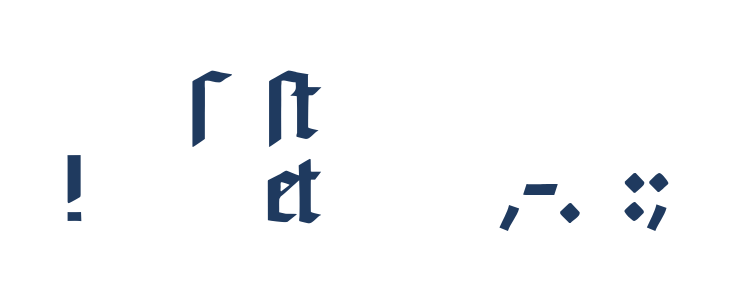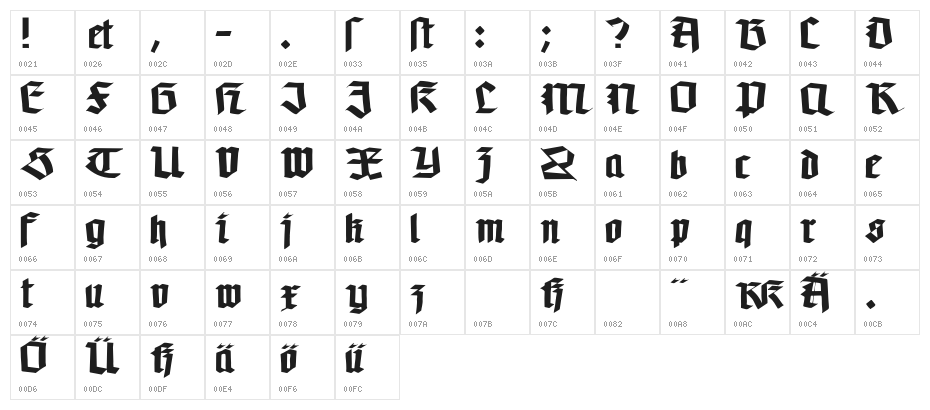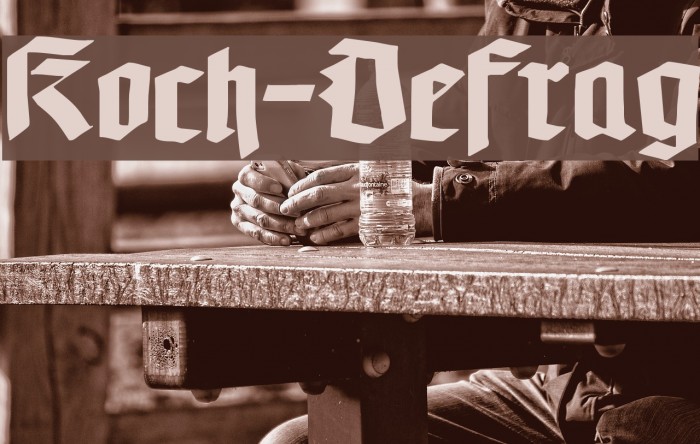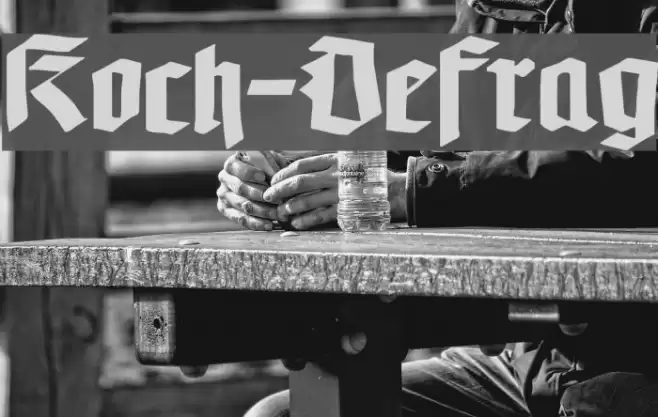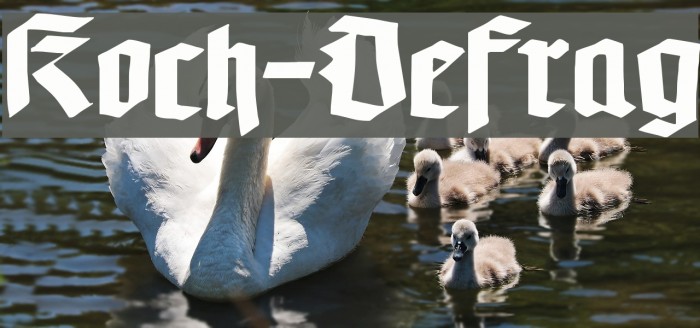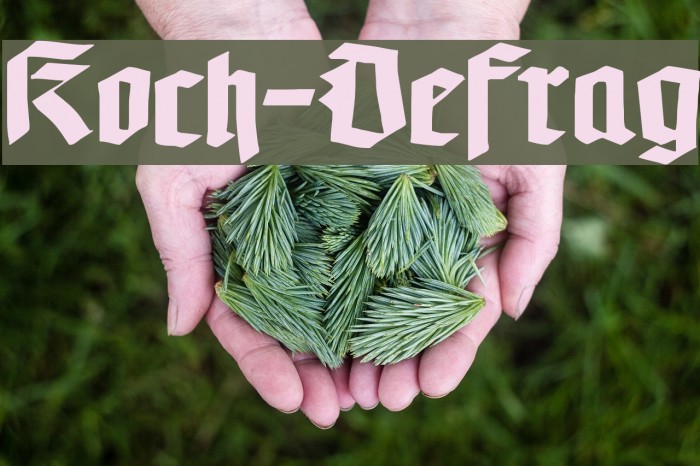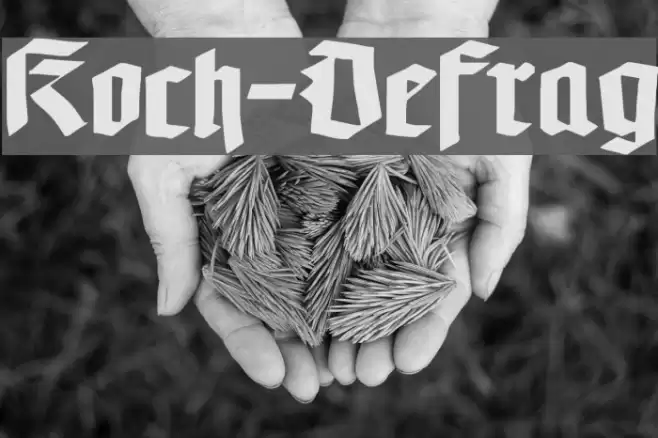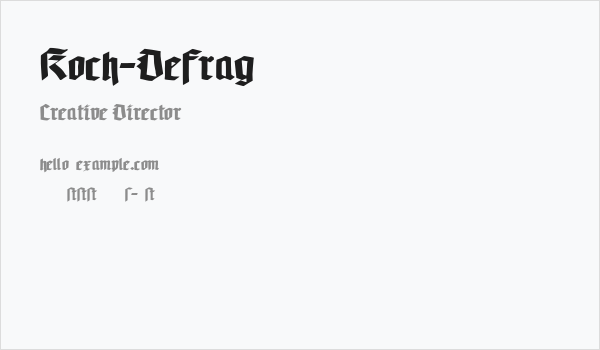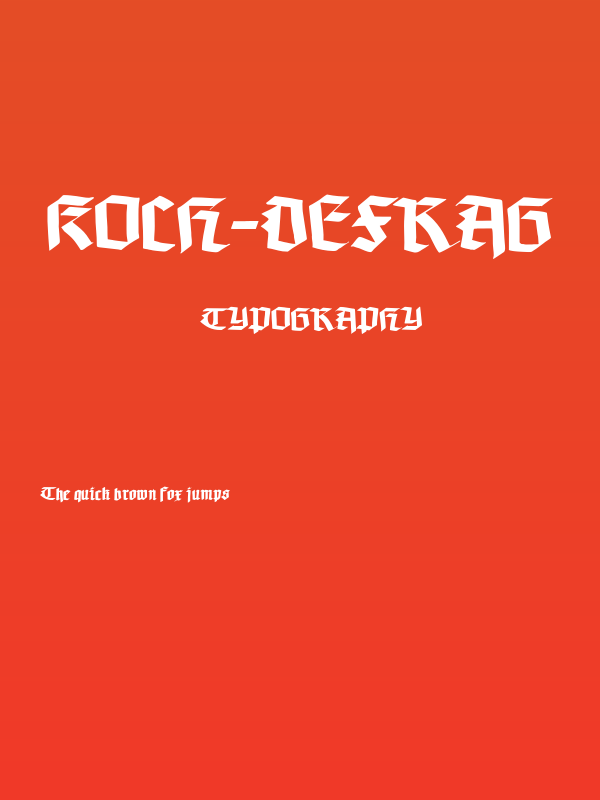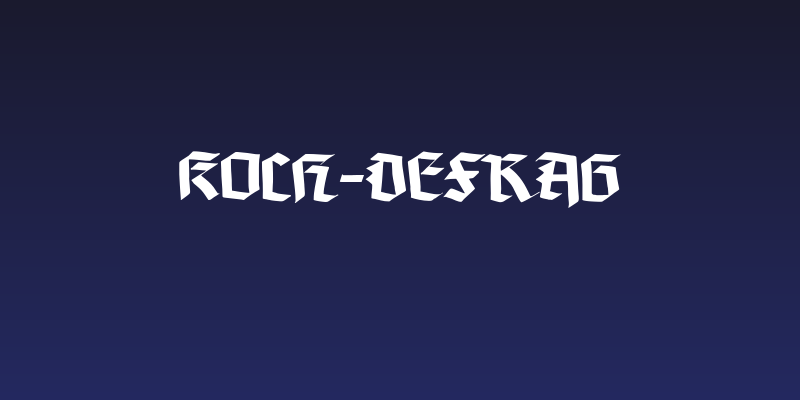
Koch-Defrag Font
Koch-Defrag Description
This font exhibits a traditional blackletter style, characterized by its intricate and angular letterforms. The uppercase letters are bold and commanding, with sharp edges and a strong presence. The lowercase letters maintain the same angularity, providing a cohesive look throughout the typeface. The font includes unique ligatures and special characters that enhance its historical and decorative appeal. Its design is reminiscent of medieval manuscripts, making it ideal for projects that require a touch of antiquity and elegance.
| Proposed Projects | Ideal for historical documents, certificates, book covers, and branding that requires a vintage or gothic aesthetic. |